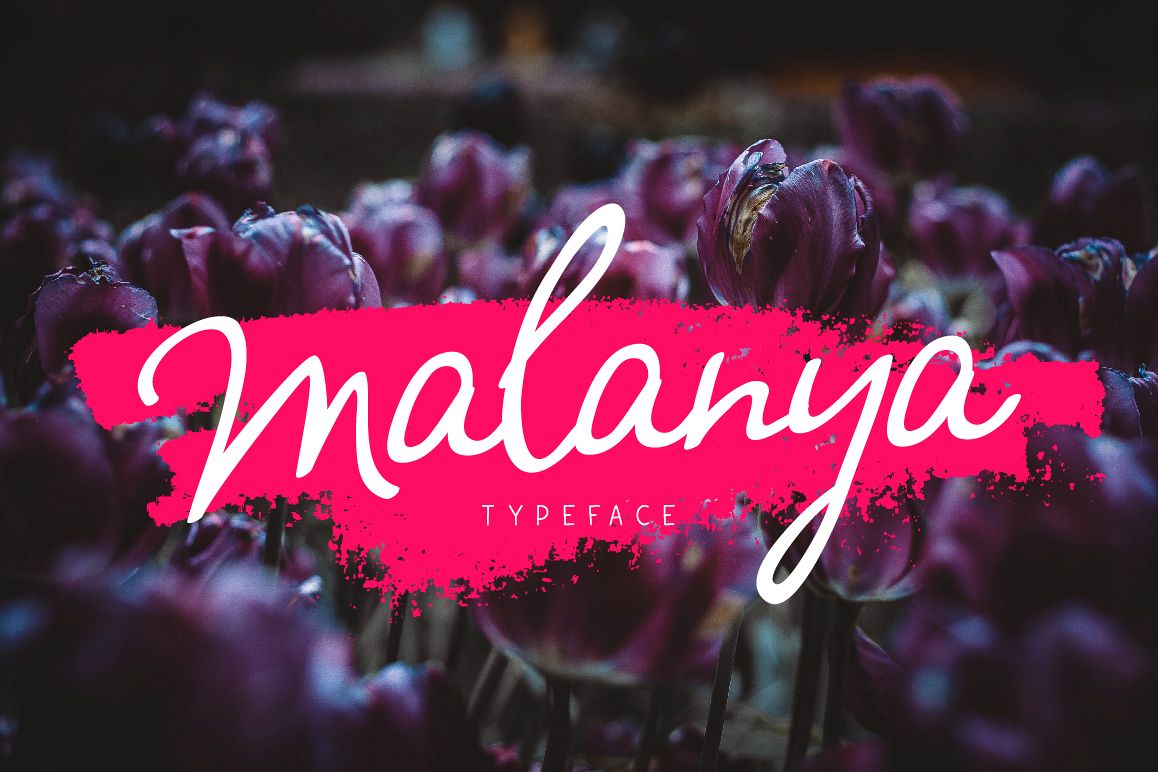
Malanya Typeface
Malanya is a stylish handwritten font. It contains a full set of lower & uppercase letters, large range of punctuation, numerals and multilingual support.
Perfect for logos, quotes, posters, branding projects, product packaging, t-shirt, book cover, greeting cards and applicable for any graphic design.